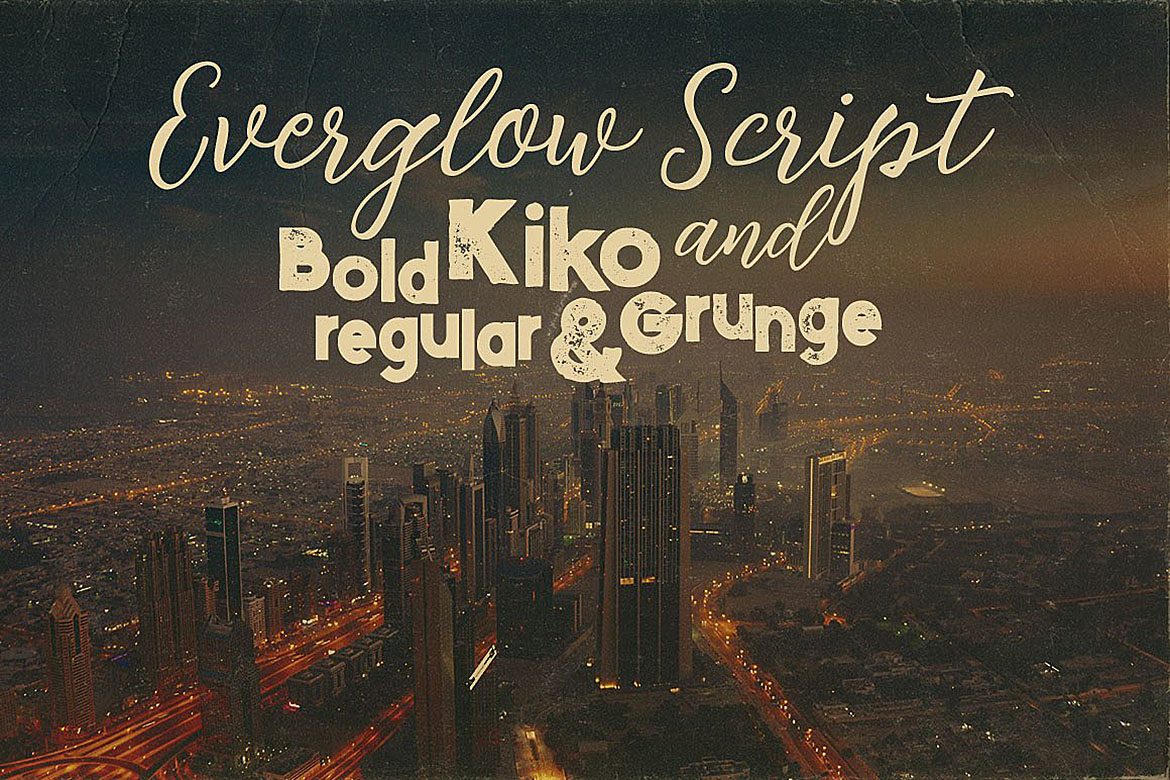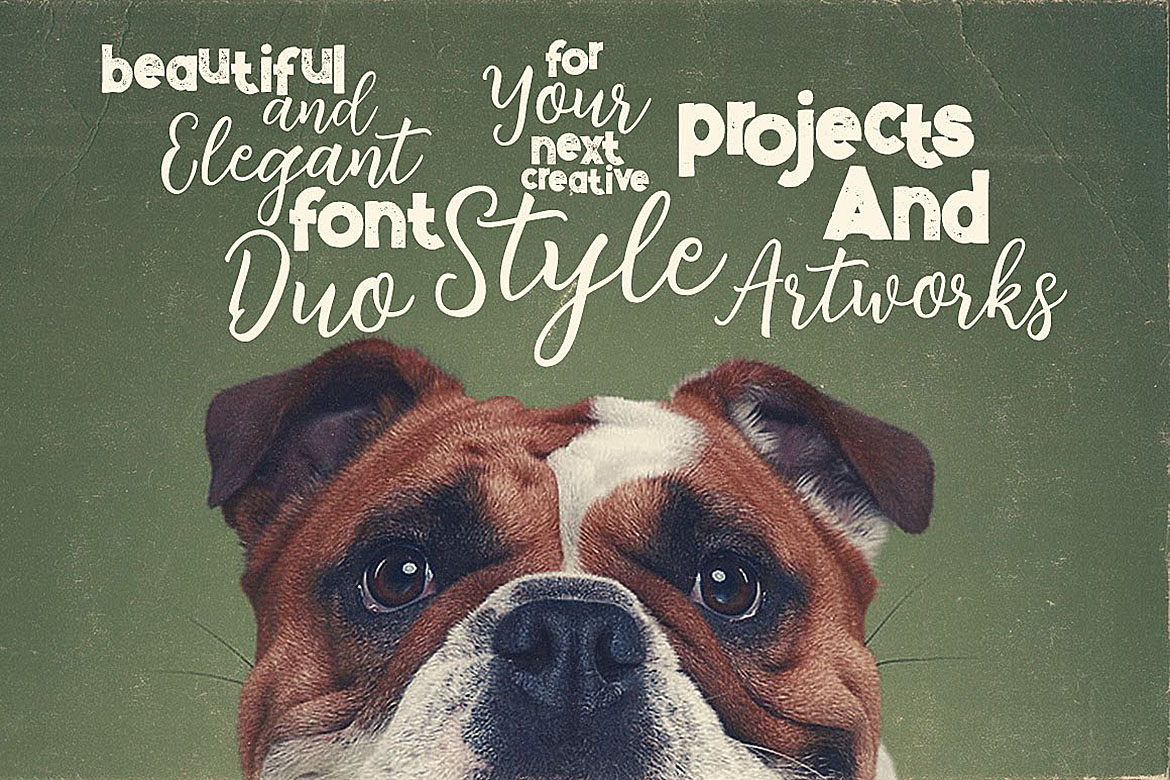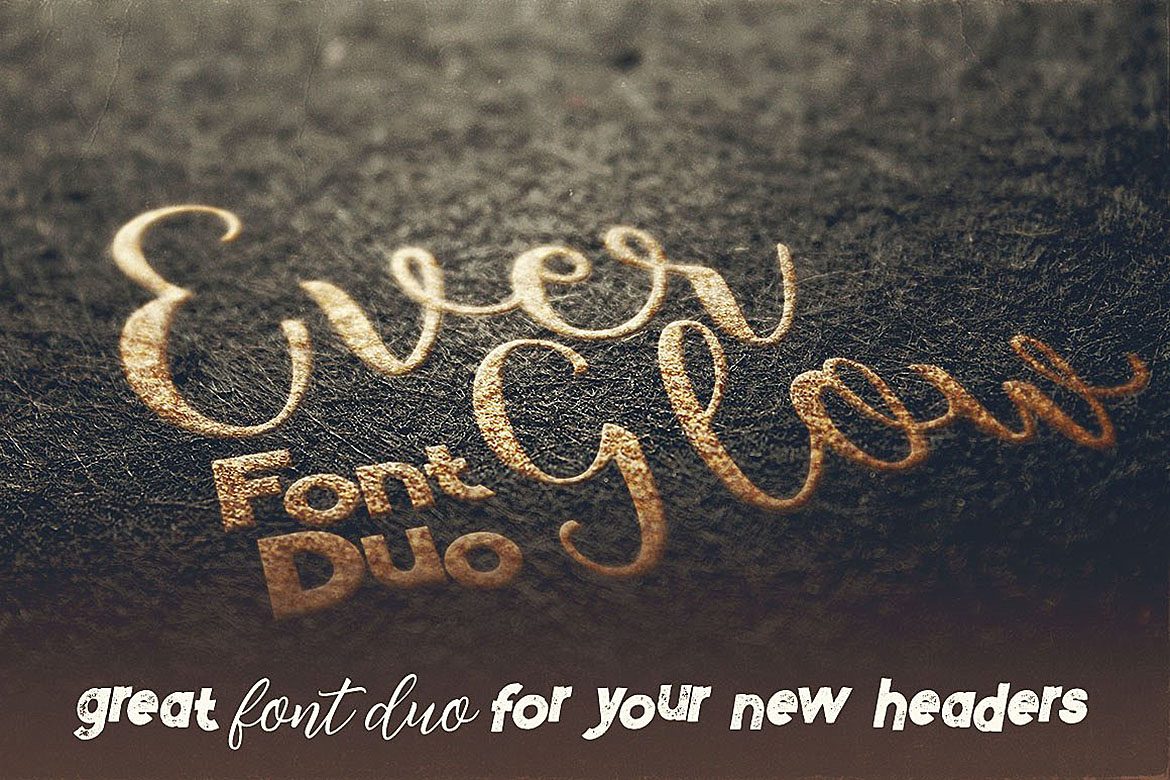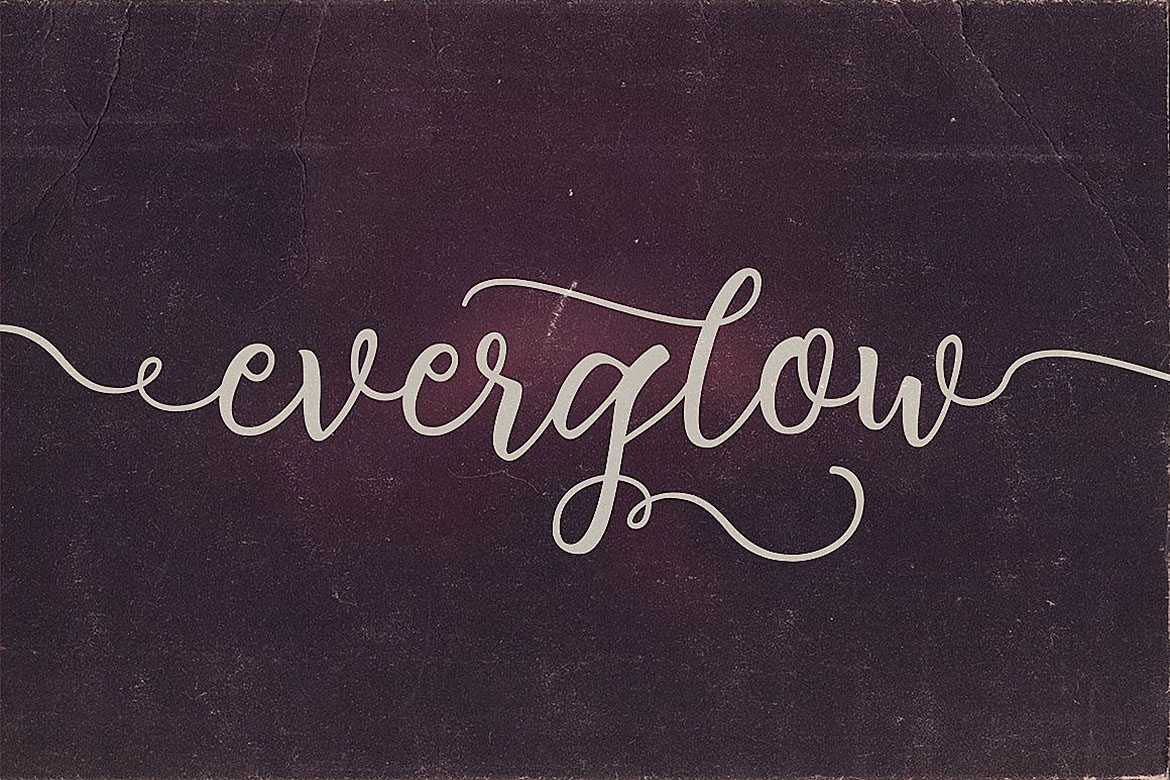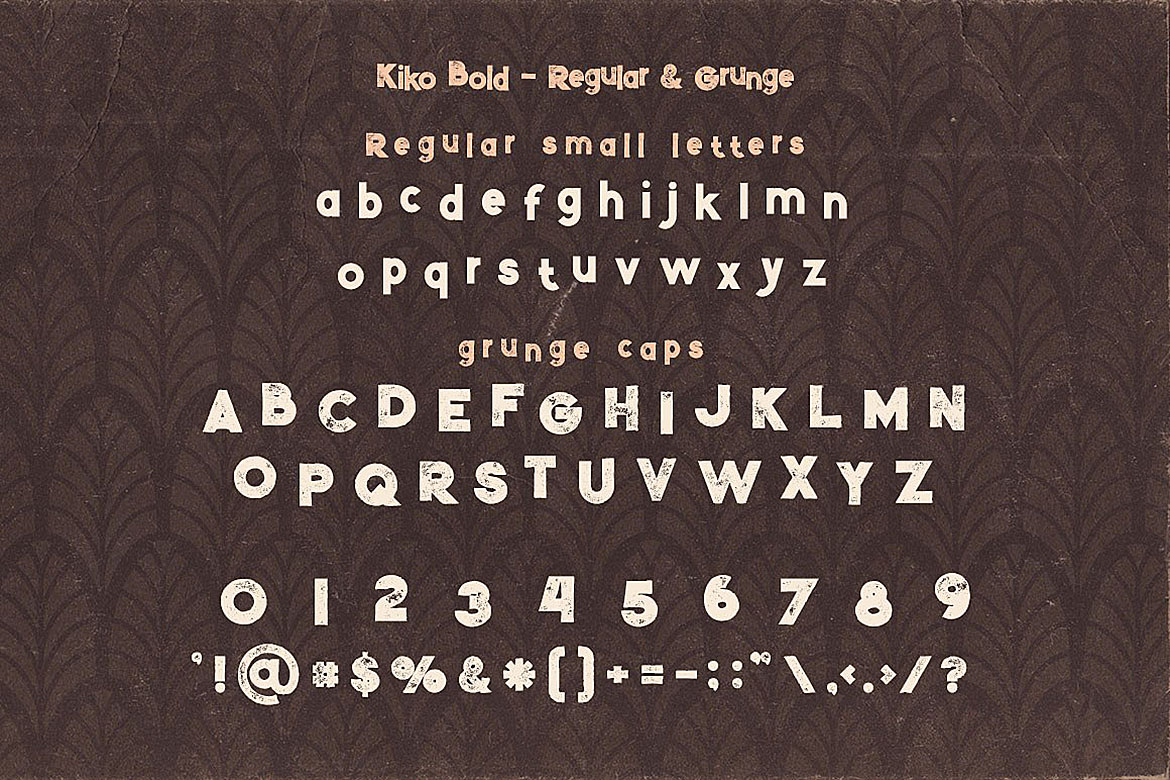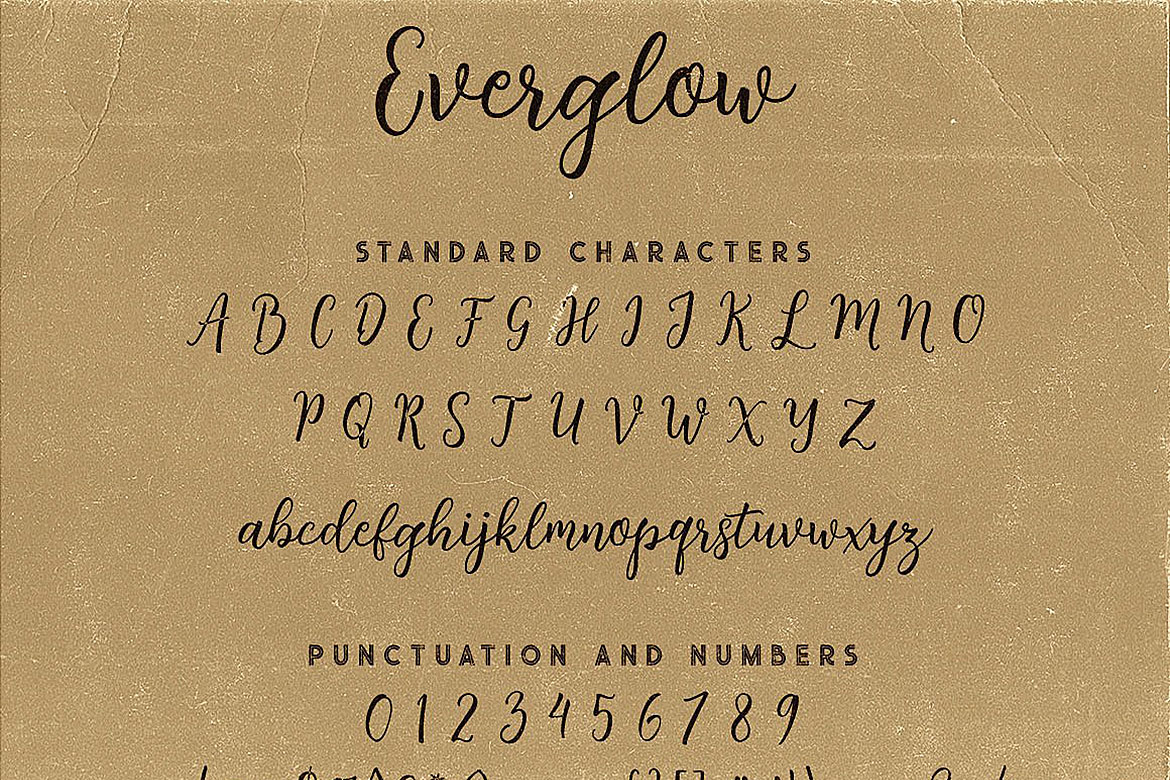
Introducing Everglow Script Font Duo: Elevate Your Designs with a Cool and Funny Style Font Combination
Are you on the hunt for a font duo that can add a dash of coolness and humor to your designs? Look no further than the Everglow Script Font Duo! This fantastic font combination is perfect for designers and crafters seeking to infuse their projects with a modern, playful vibe. In this article, we’ll dive into the exciting features of the Everglow Script Font Duo, exploring how it can become your go-to choice for creating stunning visual content.
Unleash Creativity with the Everglow Script Font Duo
The Everglow Script Font Duo consists of two complementary fonts designed to work harmoniously together, yet each brings its unique flavor to the table. The first font is a hand-drawn, modern brush-style script font, boasting multi-language support and an impressive array of stylistic alternates. This versatility allows you to experiment with various looks and feels, ensuring your designs always stand out. The second font is a bold sans serif display font, presented in both regular and grunge versions. While it may not offer multi-language support, its robust and edgy style makes it perfect for headlines, titles, and any design element you want to make a bold statement with.
Exploring the Hand-Drawn Script Font
The hand-drawn script font within the Everglow Script Font Duo is a true gem. Its modern brush style gives it a fresh, contemporary look that’s ideal for a wide range of projects, from branding and packaging to digital media and advertising. The inclusion of multi-language support makes this font incredibly versatile, capable of catering to a global audience. Moreover, the numerous stylistic alternates at your disposal provide endless opportunities for customization. Whether you’re aiming for an elegant, sophisticated feel or a more casual, whimsical vibe, this script font can adapt to meet your creative needs.
Making a Statement with the Bold Sans Serif Display Font
When you need to make a bold statement, the sans serif display font in the Everglow Script Font Duo is your perfect ally. Available in both regular and grunge versions, this font is designed to grab attention and add impact to your designs. The regular version offers a clean, crisp look that’s perfect for titles, headings, and any design element where clarity and readability are key. On the other hand, the grunge version adds a bit of texture and roughness, giving your designs an edgy, urban feel that’s sure to stand out.
Why Choose the Everglow Script Font Duo?
So, what makes the Everglow Script Font Duo an excellent choice for designers and crafters? Here are a few compelling reasons:
- Versatility: With two distinct fonts that can be used together or separately, you have the flexibility to create a wide range of design looks.
- Multi-Language Support: Especially useful for the script font, allowing you to reach a broader audience.
- Stylistic Alternates: The script font’s many alternates give you the tools to add personality and uniqueness to your designs.
- Cool and Funny Style: The Everglow Script Font Duo brings a modern, playful vibe to your projects, making it perfect for designs aimed at a younger audience or those looking to add a bit of humor.
Using the Everglow Script Font Duo in Your Projects
Incorporating the Everglow Script Font Duo into your designs is straightforward. Here are some tips to get you started:
- Pair Them Wisely: Use the script font for body text or quotes to add a personal touch, and the sans serif font for headings to create a visually appealing hierarchy.
- Experiment with Stylistic Alternates: Take advantage of the script font’s alternates to add variety and interest to your text.
- Mix and Match: Don’t be afraid to use the grunge version of the sans serif font for a more rugged look or the regular version for clean, crisp text.
The Everglow Script Font Duo is a powerful tool for any designer or crafter looking to infuse their projects with a cool, funny style. With its combination of a versatile hand-drawn script font and a bold sans serif display font, this duo offers endless possibilities for creativity. Whether you’re working on branding, digital media, or any other project, the Everglow Script Font Duo is sure to elevate your designs to the next level.
So why wait? Dive into the world of creative possibilities with the Everglow Script Font Duo and discover how this fantastic font combination can transform your designs.